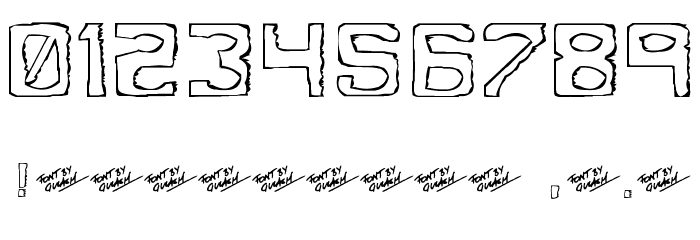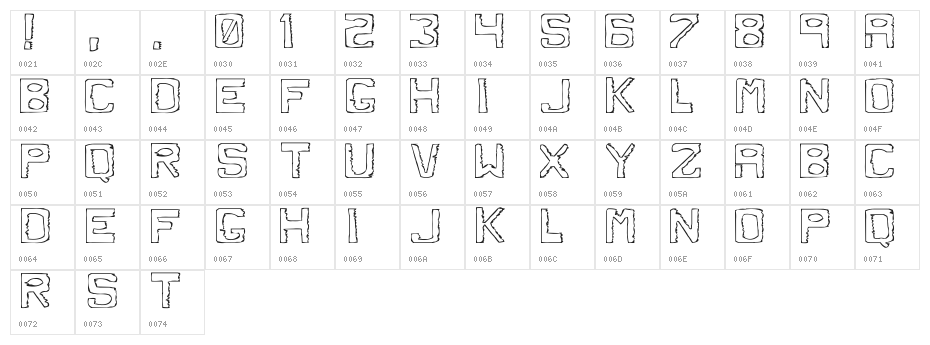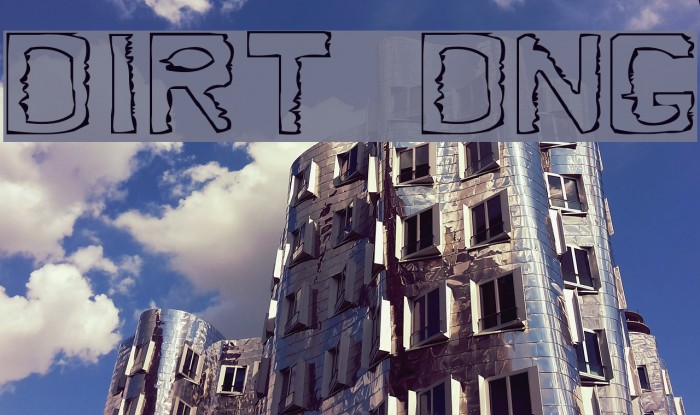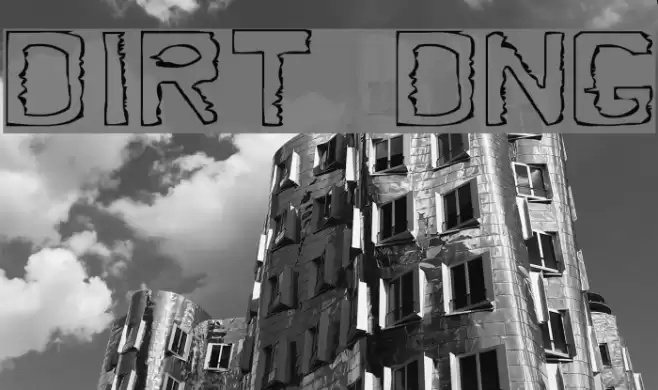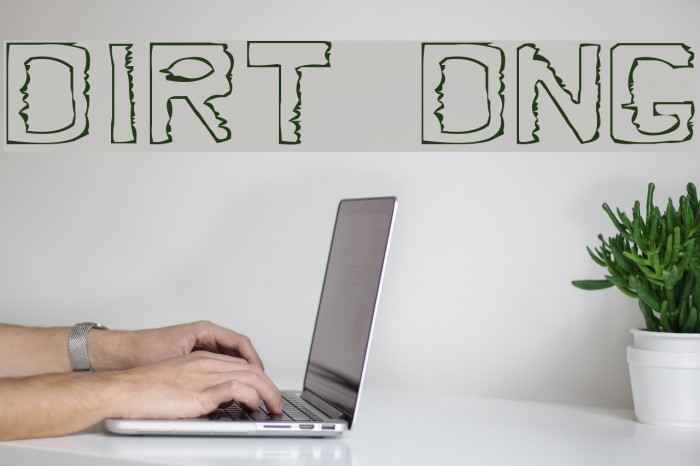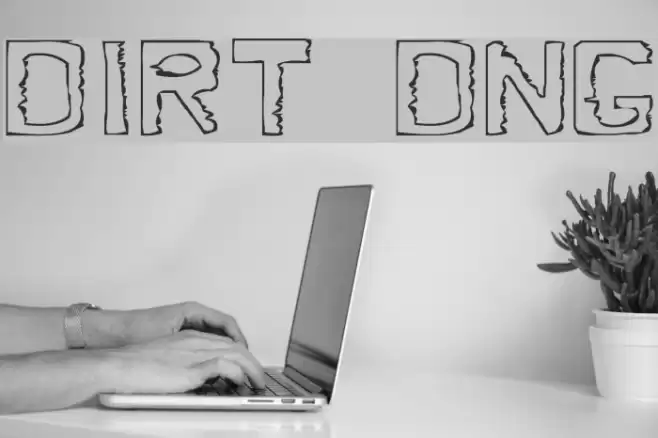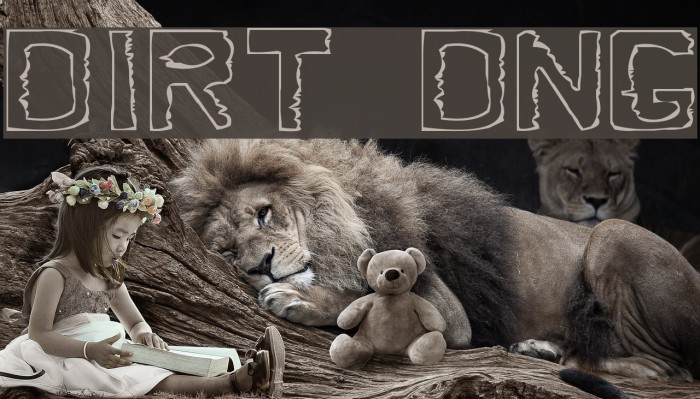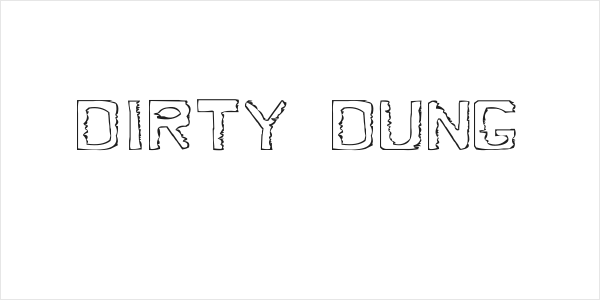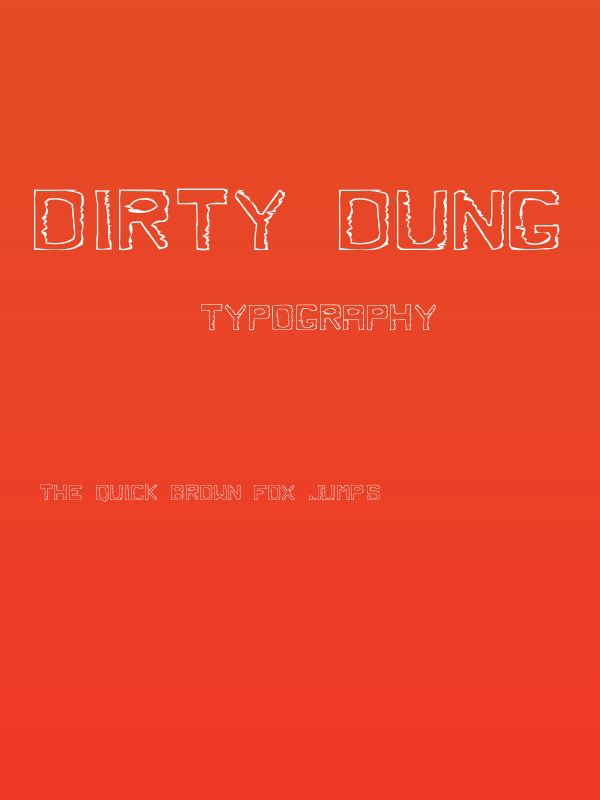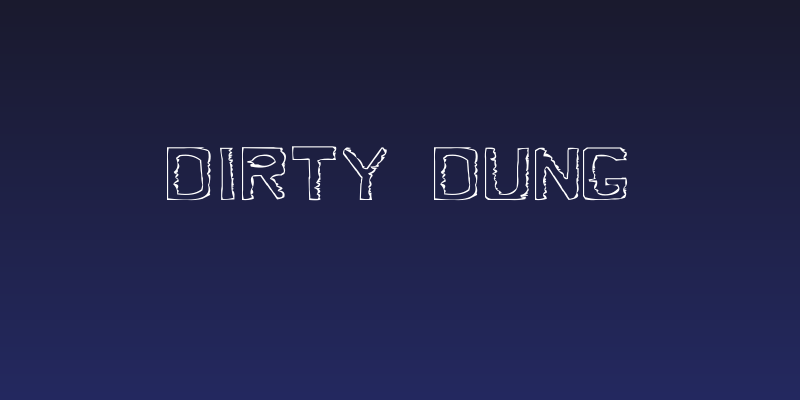
Dirty Dung Font
Dirty Dung Description
This font features a rugged, distressed style that mimics the appearance of worn or eroded surfaces. Each character is outlined with a rough, uneven edge, giving it a gritty and raw aesthetic. The uppercase and lowercase letters maintain a consistent height, while the numbers and special characters follow the same distressed theme. This design choice creates a cohesive look across all characters, making it ideal for projects that require a bold and edgy statement. The font's unique texture adds depth and character, making it stand out in any design.
| Proposed Projects | Ideal for posters, album covers, streetwear branding, or any project needing an edgy, bold statement. |